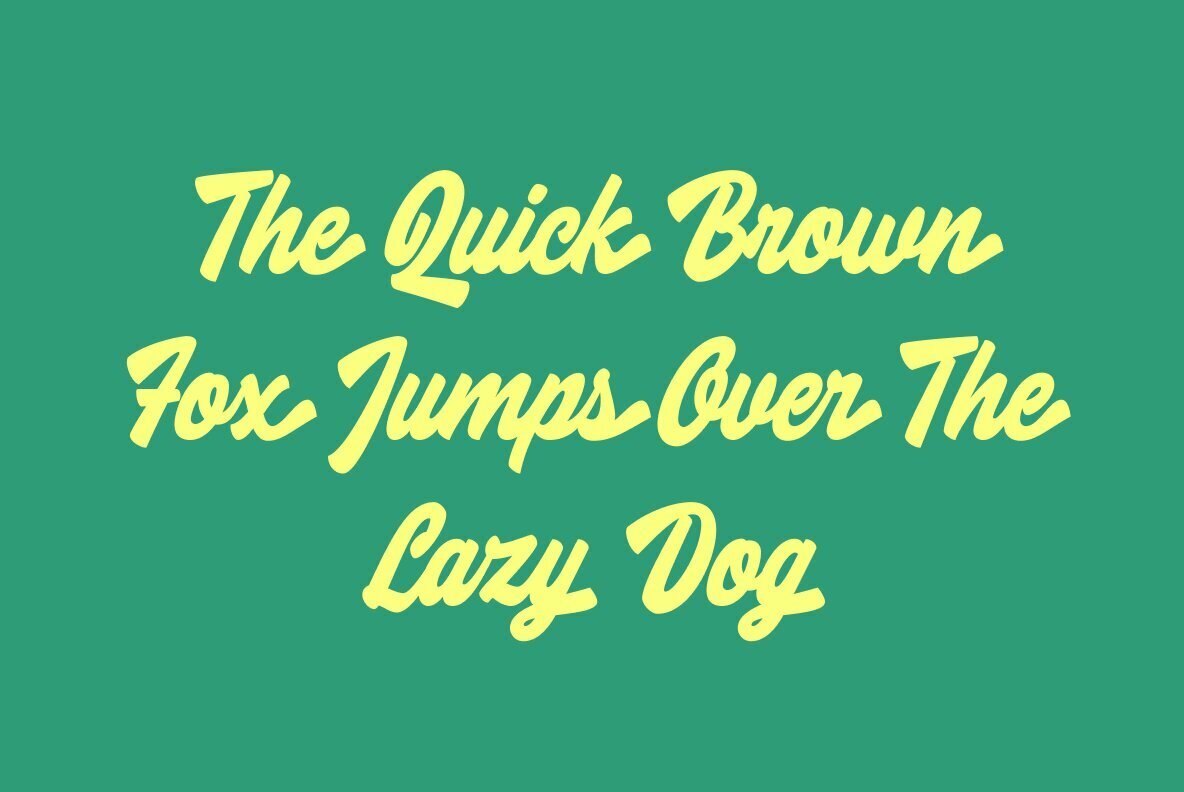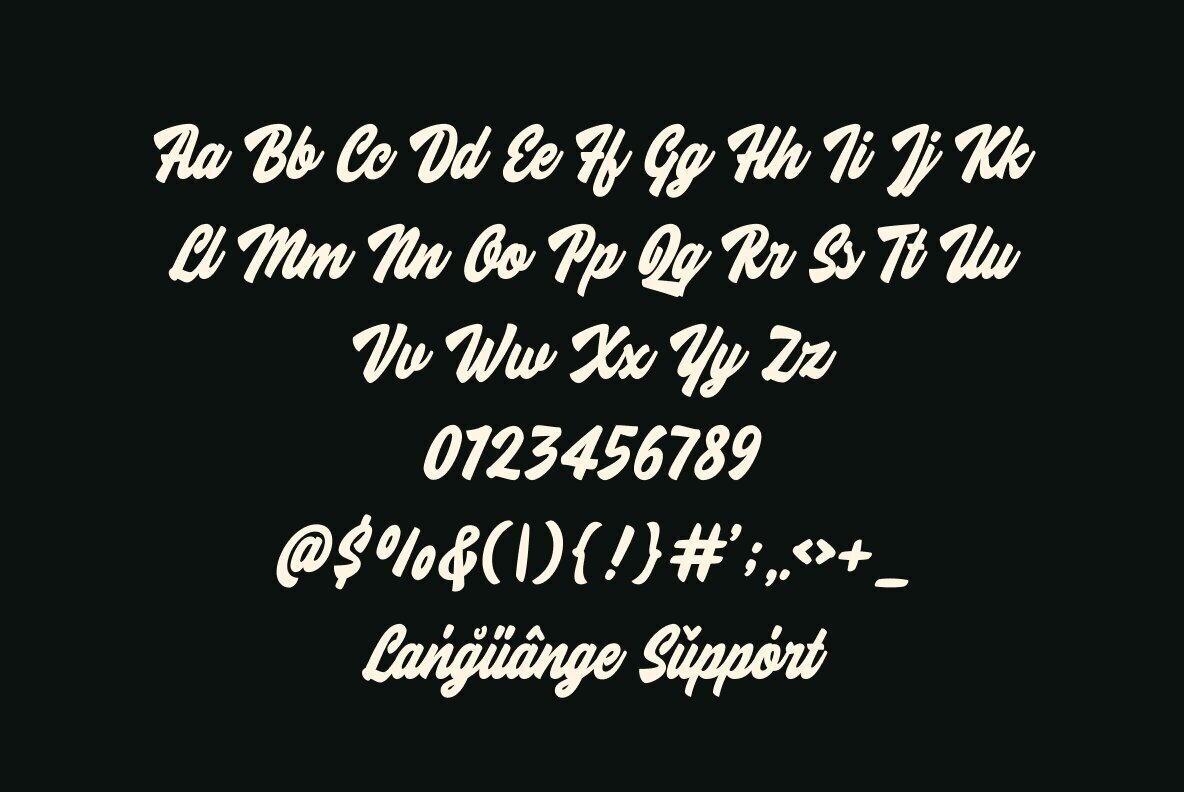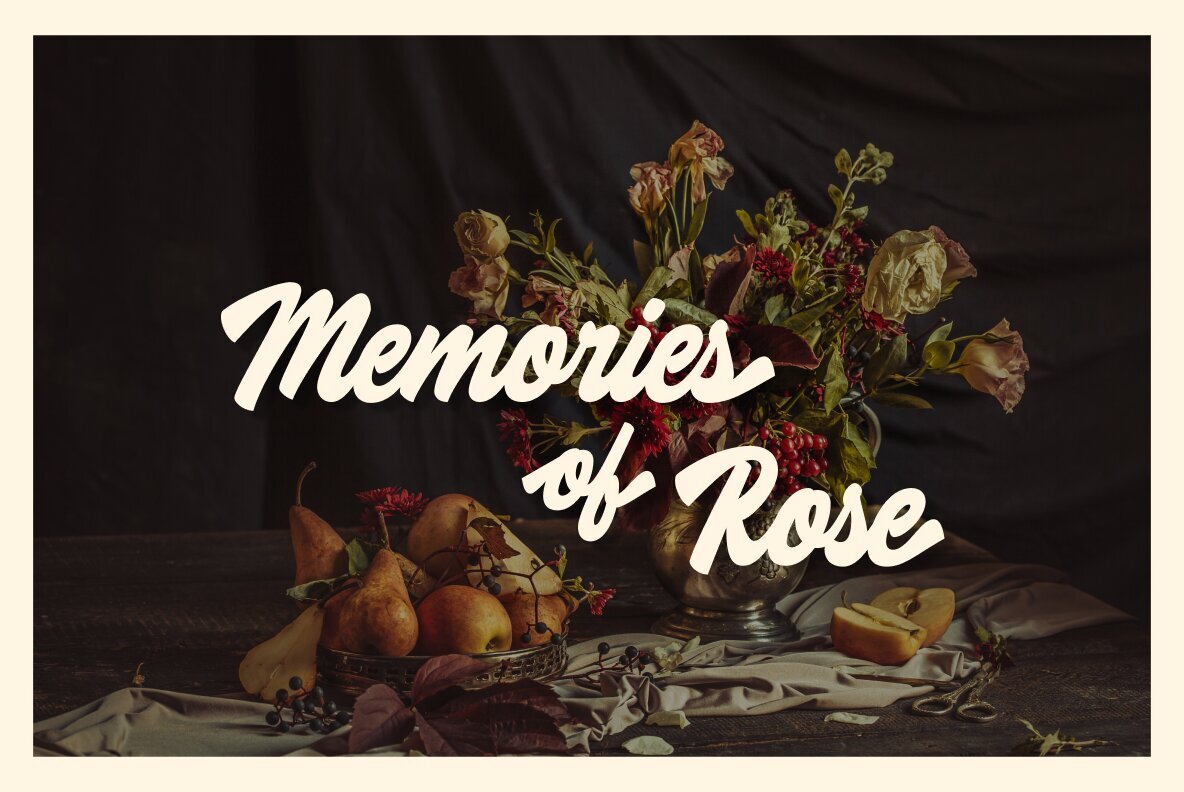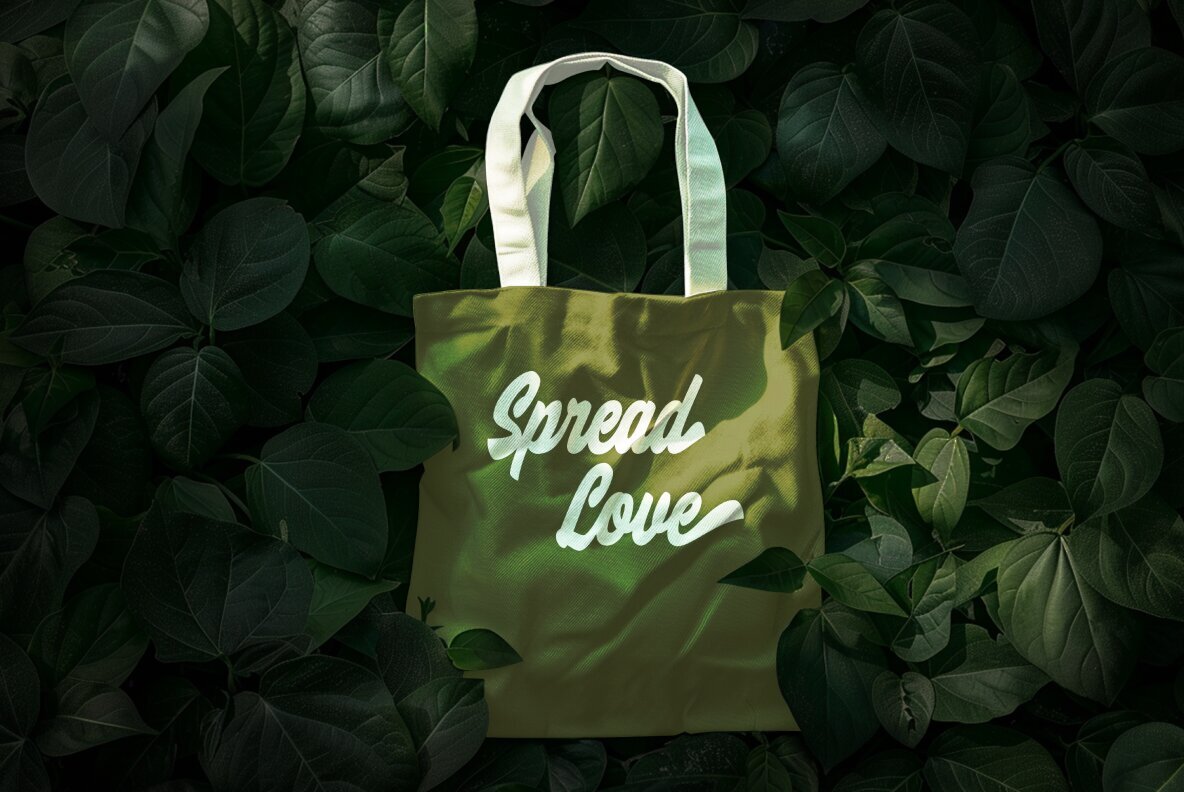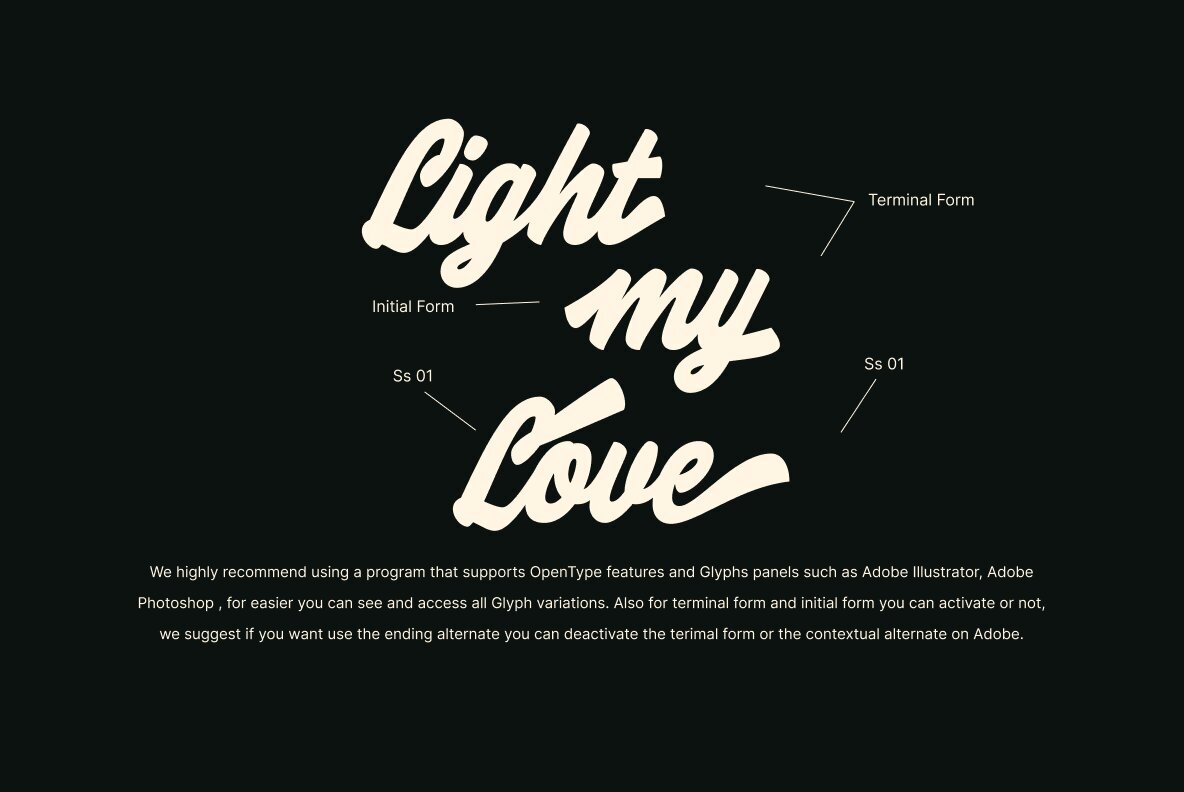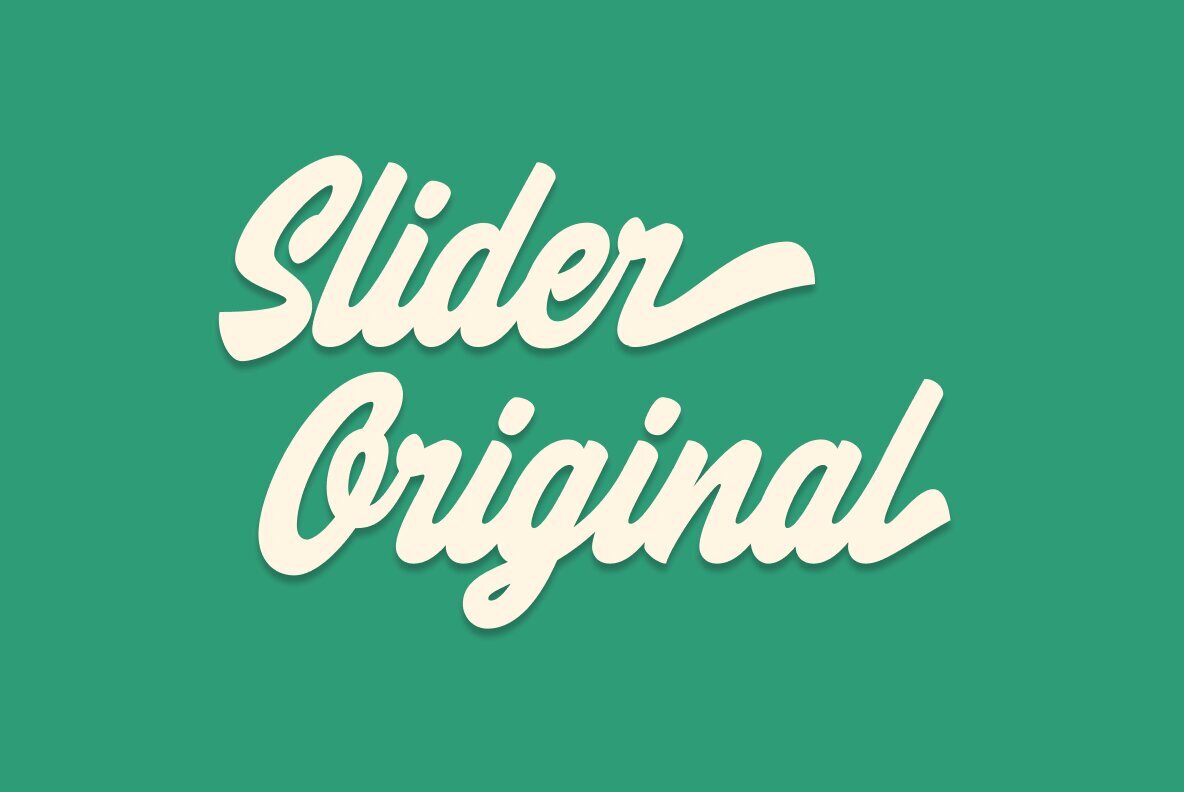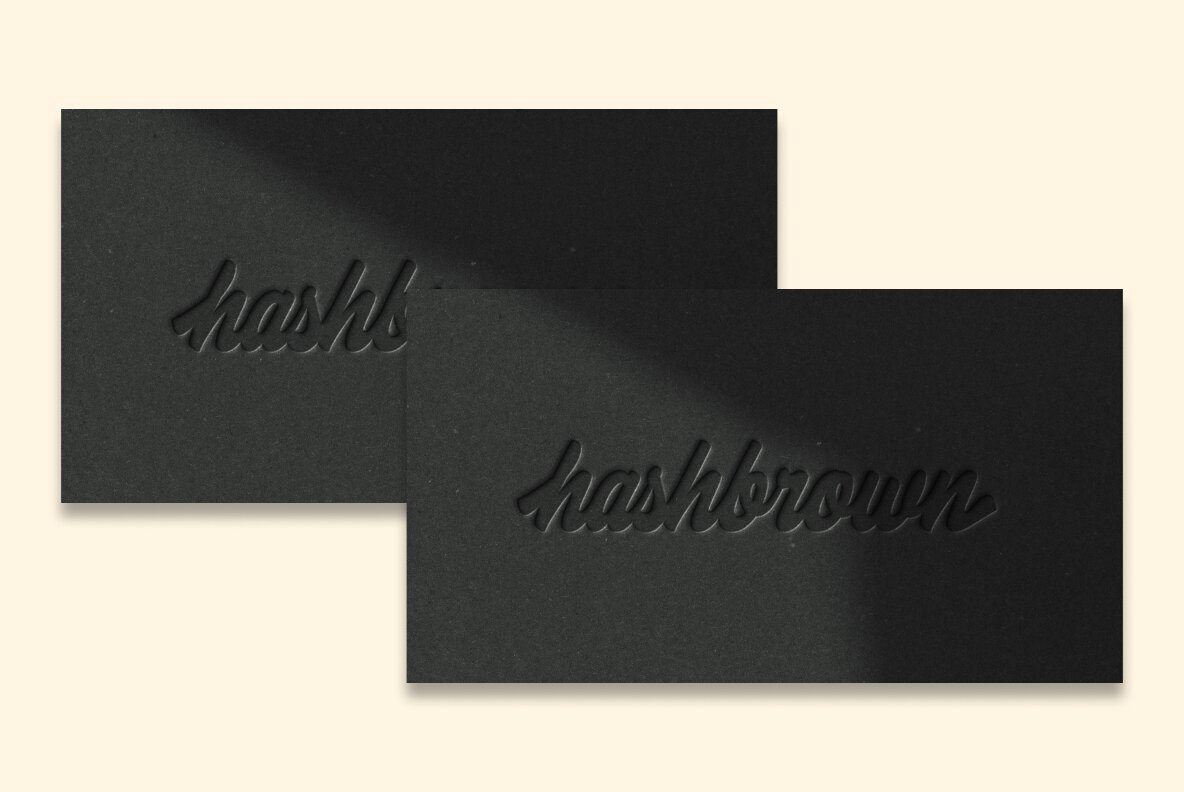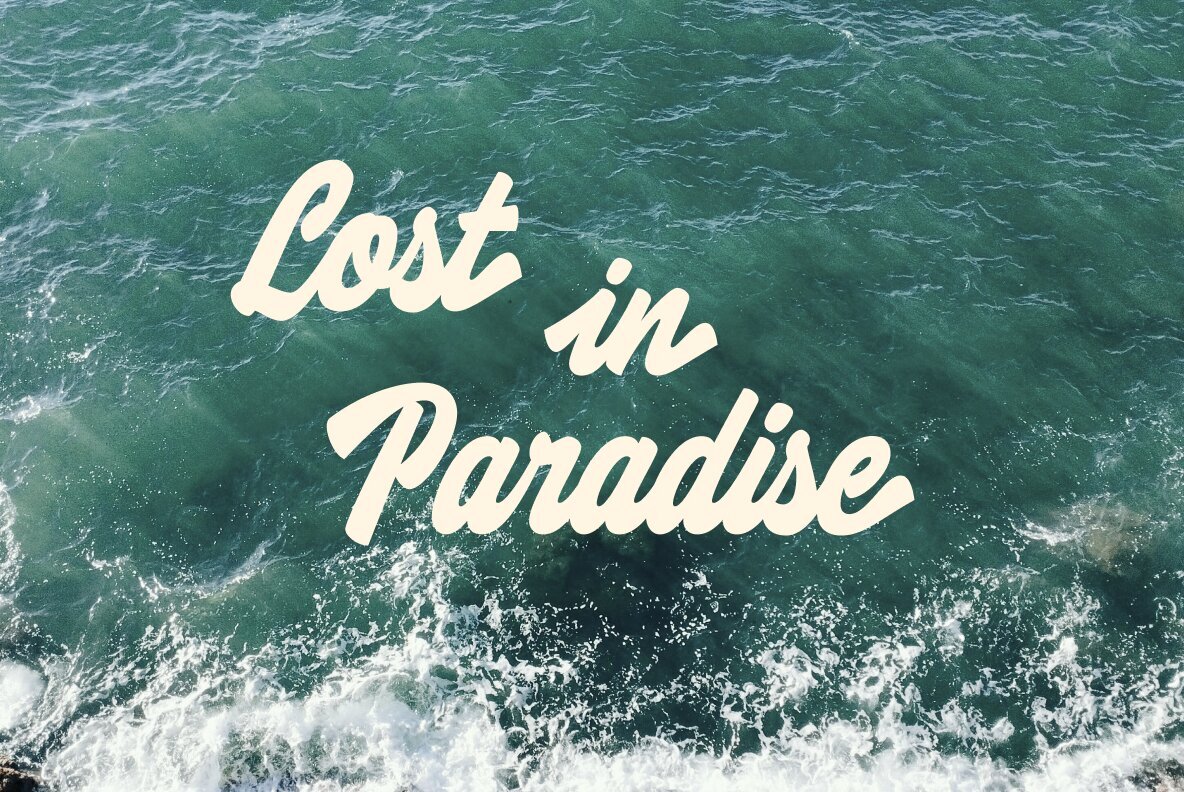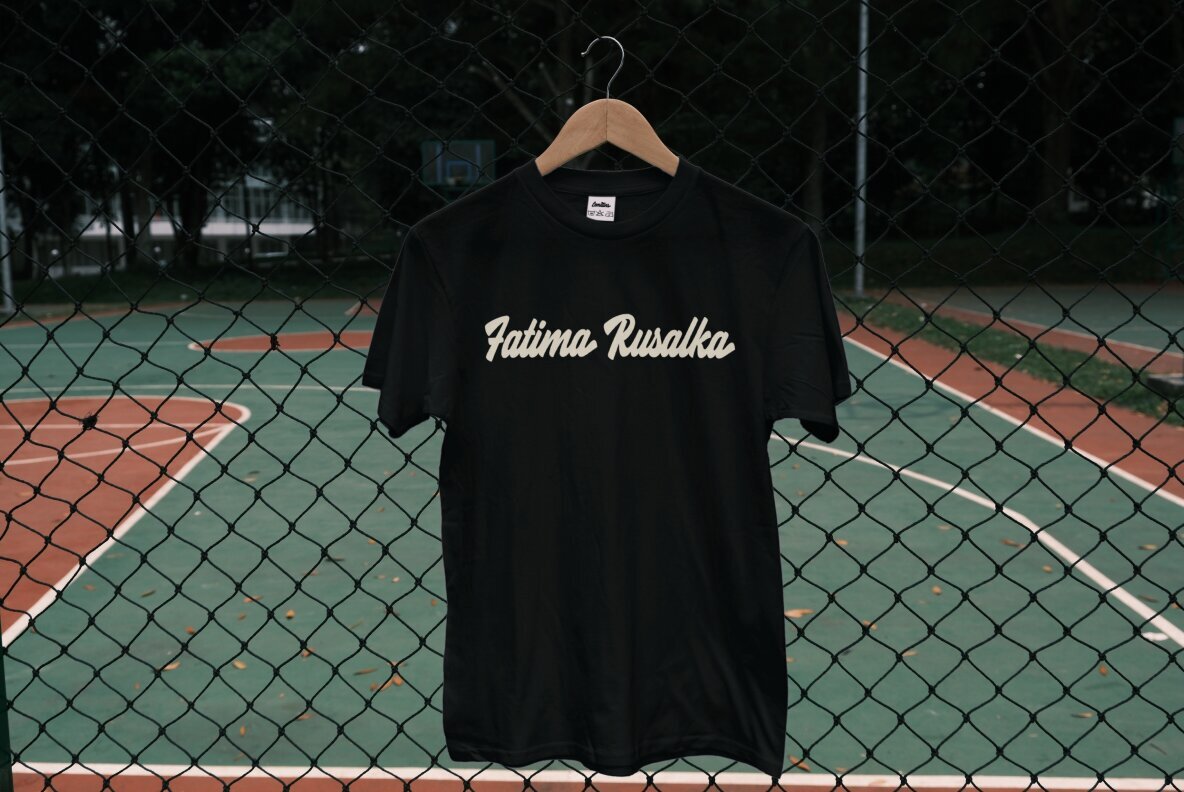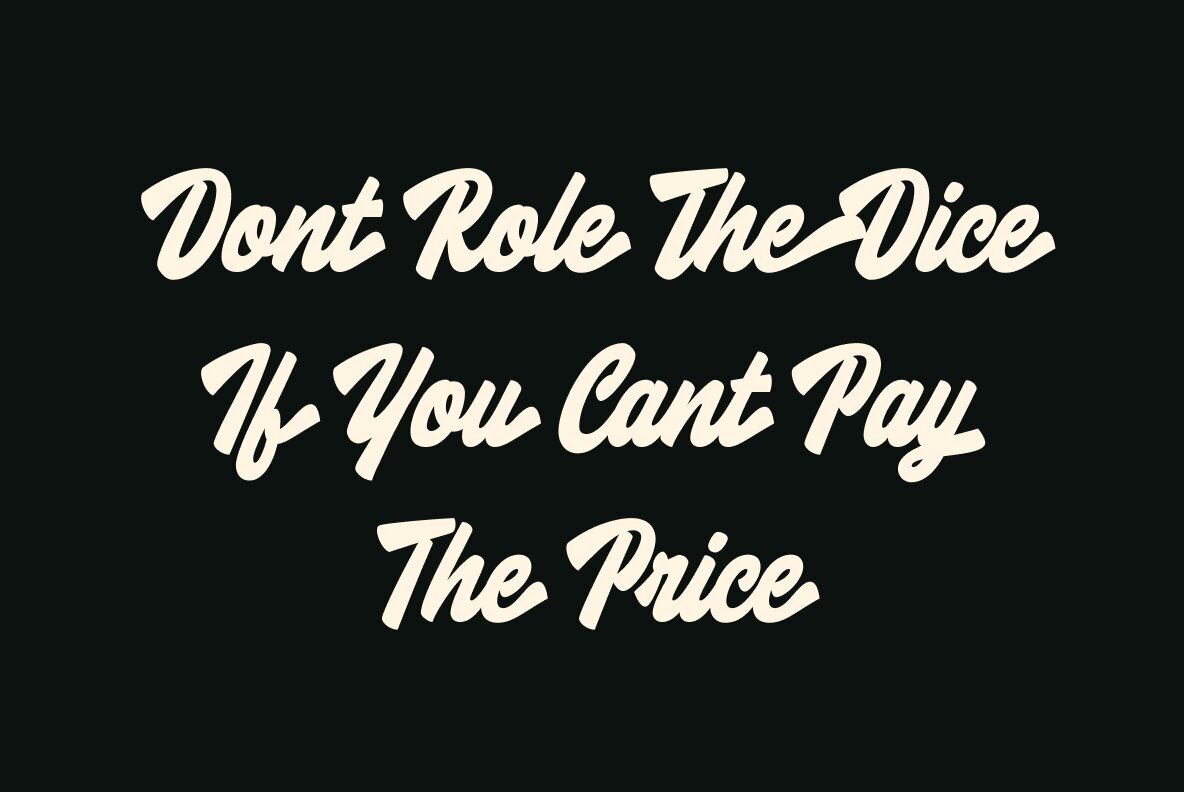
Lematins Font
Lematins Script Regular
Lematins Script is a graceful speedstroke script font, drawing inspiration from the iconic retro typography of the late ’60s and ’70s. With its classic brush script essence, this font embodies the nostalgic charm of vintage design while incorporating a modern touch for contemporary versatility. Perfect for projects that require both elegance and personality, Lematins Script’s fluid strokes and timeless appeal make it an excellent choice for logos, branding, invitations, and more. Its seamless blend of retro aesthetics and modern design ensures that it stands out in any application. Whether you’re aiming for nostalgia or a fresh, stylish look, Lematins Script delivers sophistication with a playful edge.